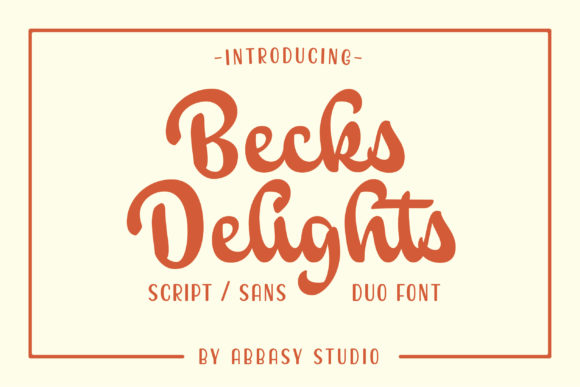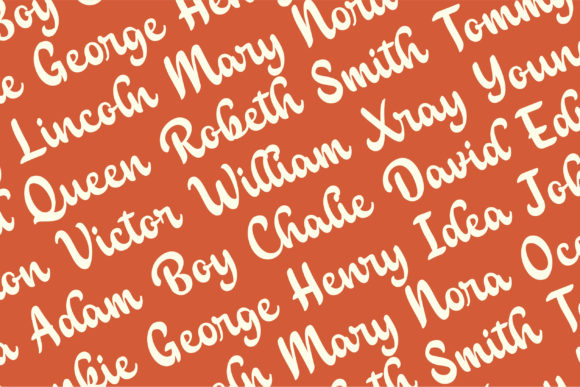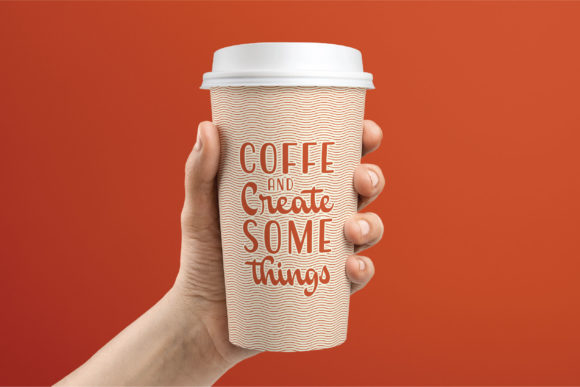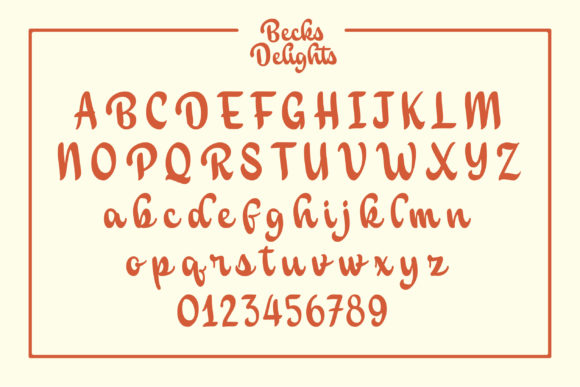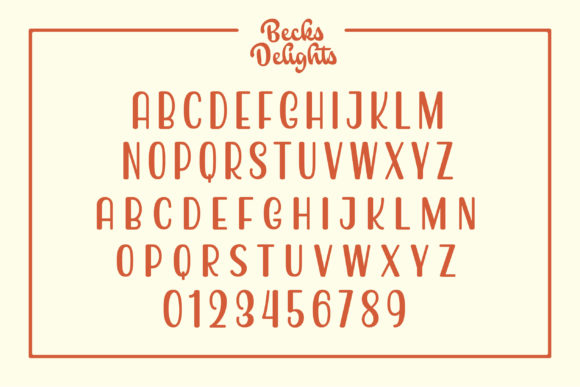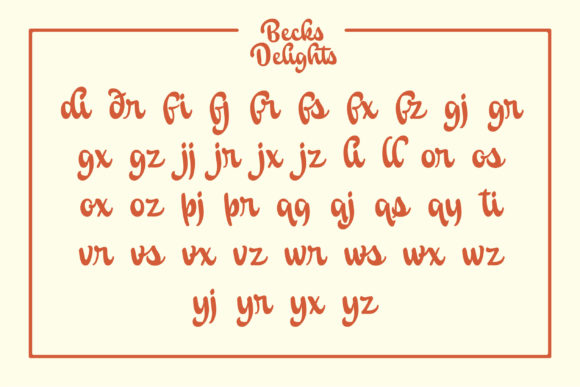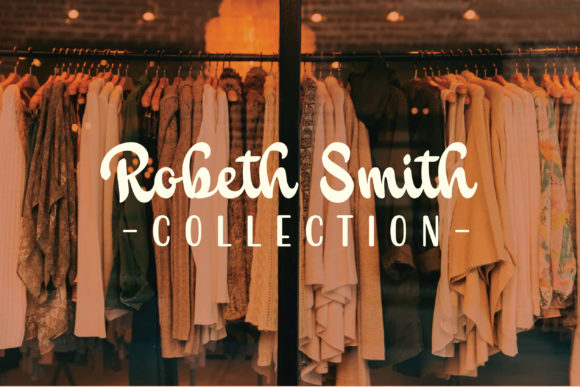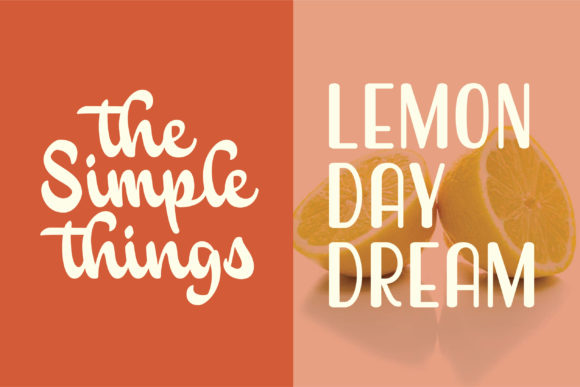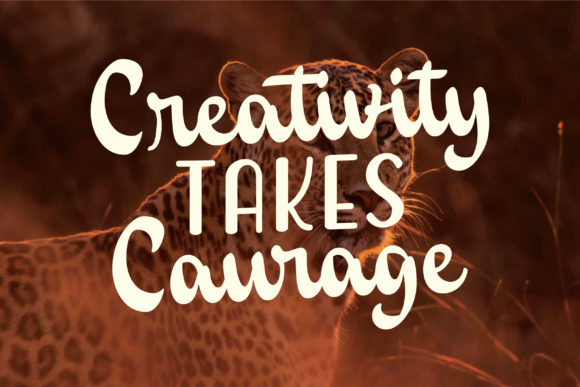
Becks Delights Font
About Becks Delights Font
Becks Delights is a vintage clean brush script. Use this script font to add that special retro touch to any design idea you can think of!